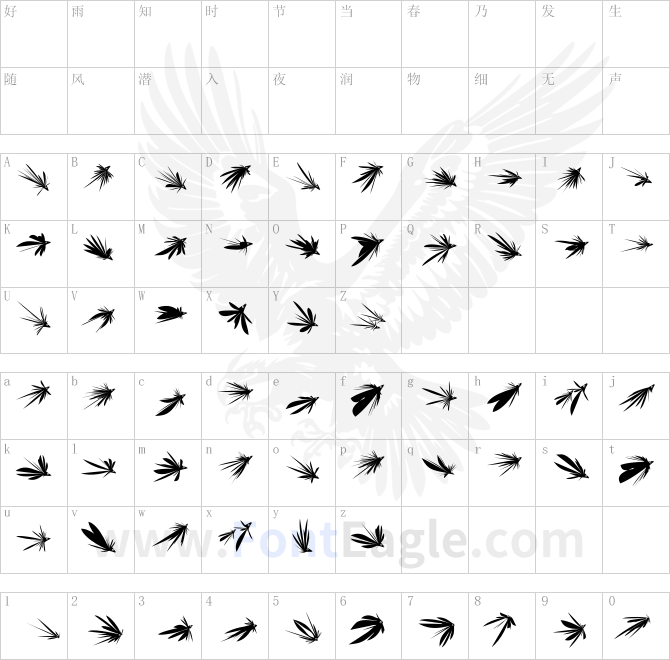
PescesBizarri is a great font, widely used in graphic design, single-page menu design, poster design and other fields, and is deeply loved by designers.PescesBizarri download.